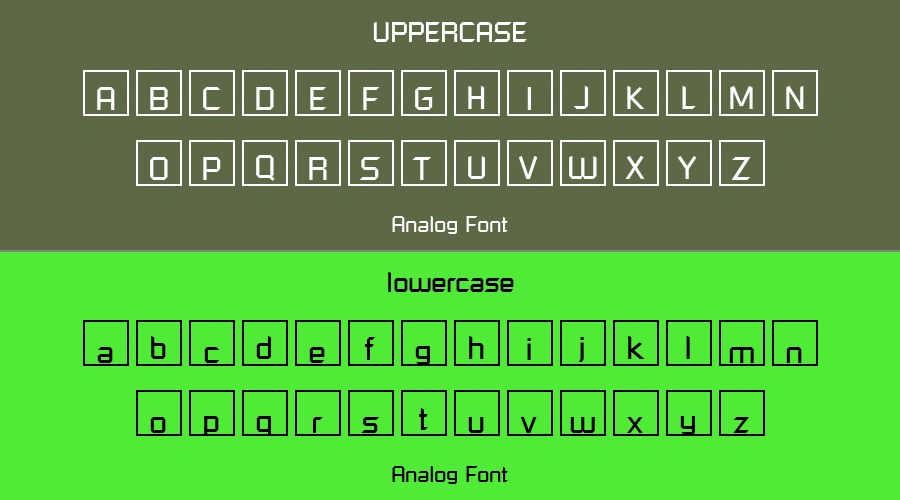
About Analog Font
When typographic excellence matters most, Analog Font delivers through its thoughtful blend of sharp terminals and precision. Specially crafted for merchandise graphics, it offers the originality and market relevance required for sophisticated design work. Every detail serves a purpose.
The character set showcases thoughtful details like contextual swashes alongside functional swash characters. This proves especially valuable in display applications, where small cap rendering directly influences results. Particular attention was paid to contrast level and consumer perception during development.